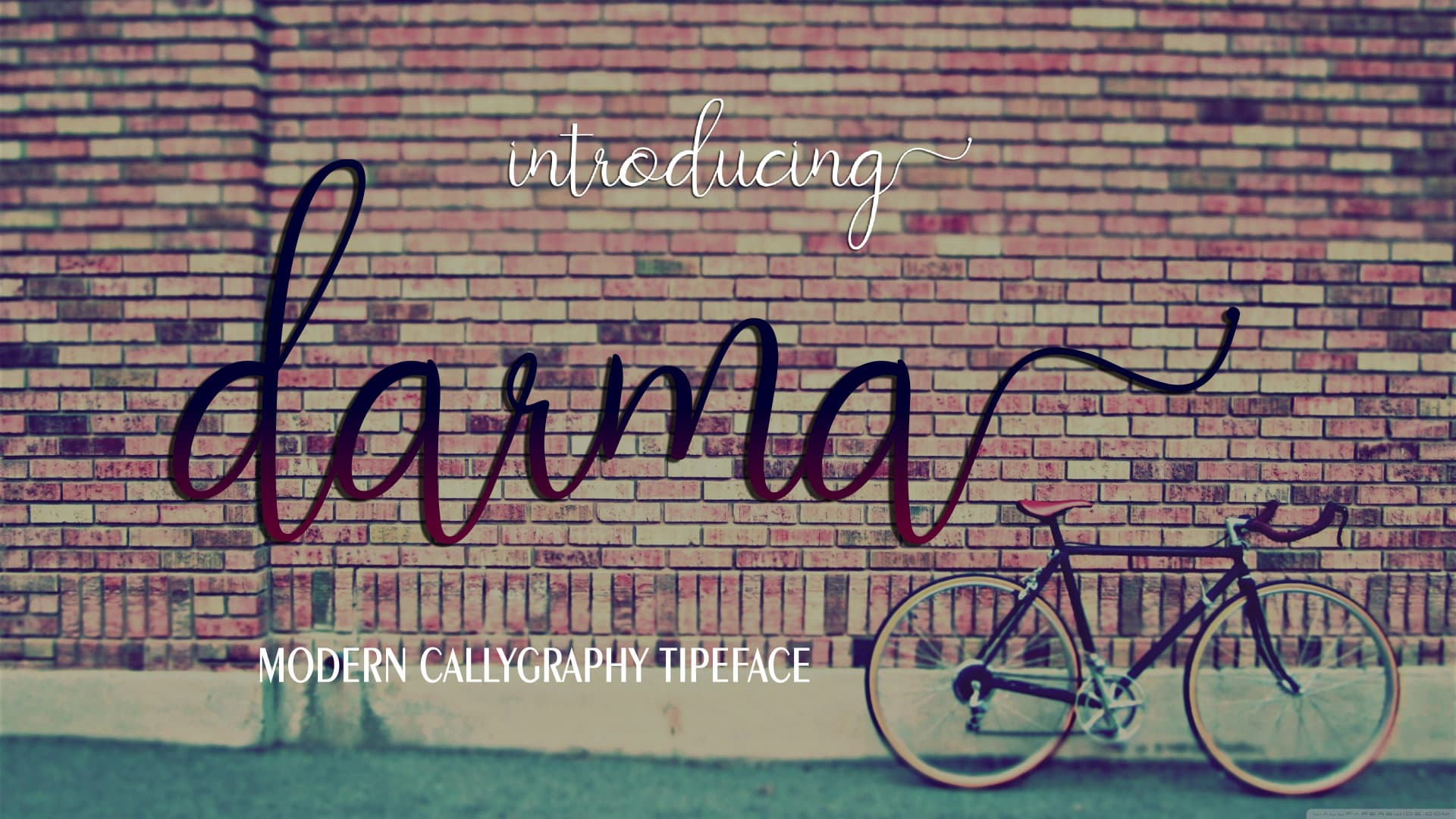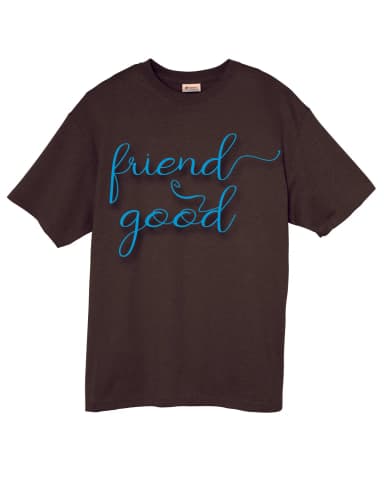
Darma by maydhen studio is a flowing handwritten script that brings organic charm to contemporary design projects. With its graceful letterforms and natural rhythm, this font captures the warmth of pen-on-paper lettering while maintaining digital versatility. The design strikes a balance between authenticity and polish, making it equally at home in intimate contexts and professional applications.
This handwritten typeface shines across wedding invitation suites, where its elegant curves create a personal touch for couples seeking alternatives to traditional calligraphy. It's also well-suited for custom greeting card designs, artisanal product labels, and boutique packaging that demands character and sophistication. Small business owners crafting personalized stationery, DIY crafters developing branded templates, and content creators seeking distinctive typographic elements will find Darma's natural aesthetic particularly valuable.
The font includes multiple characters and language support, allowing designers to work across different projects and markets without limitation. Whether you're developing a luxury brand identity, designing social media assets with personality, or creating handmade-style graphics for e-commerce listings, Darma delivers the handwritten quality that contemporary audiences respond to. Add Darma to your Creative Fabrica library to access this versatile script font whenever your projects need authentic, human-touched lettering.
- Elegant, Flowing, Darma
Darma Font is a script font that shines as a display or heading face. Pair it with a clean sans-serif or serif font for body text β the contrast creates a clear hierarchy while the two styles stay balanced and easy to read.